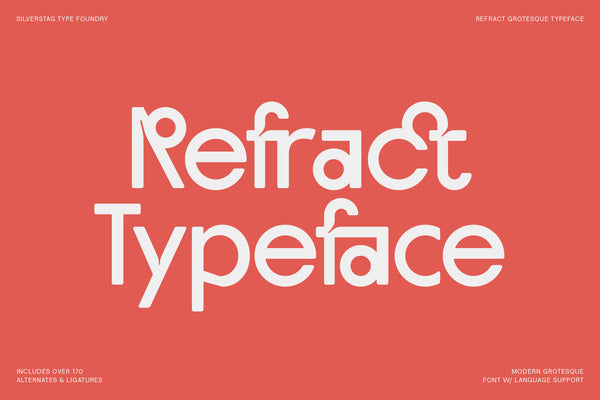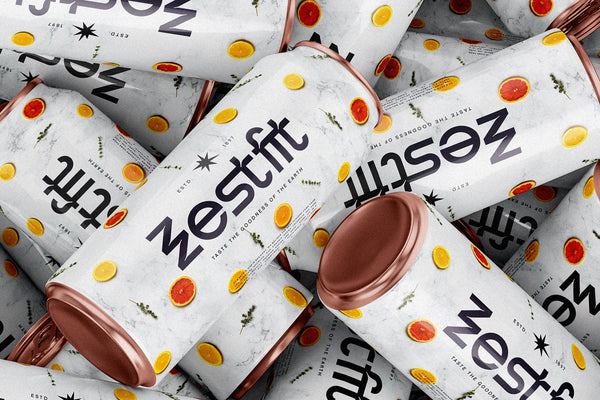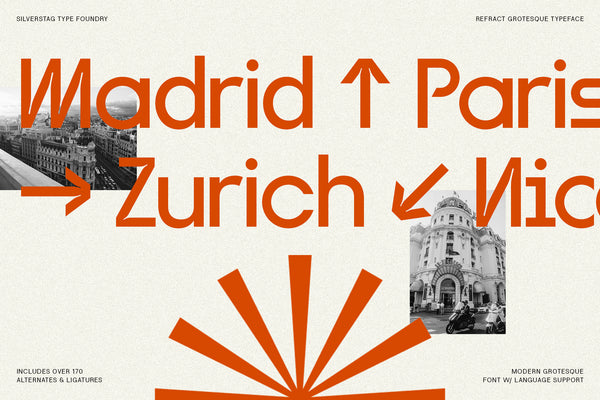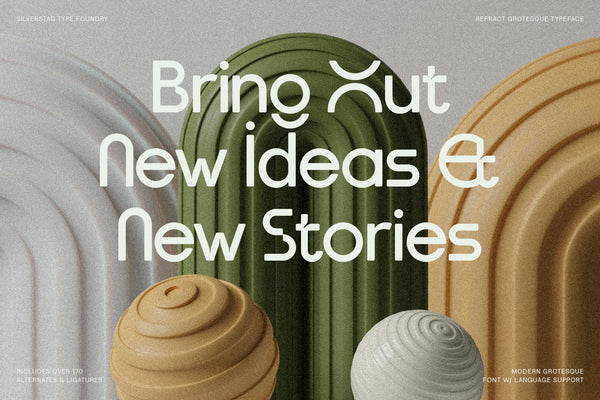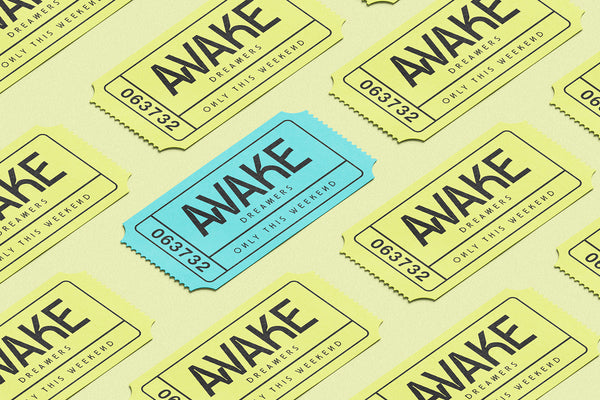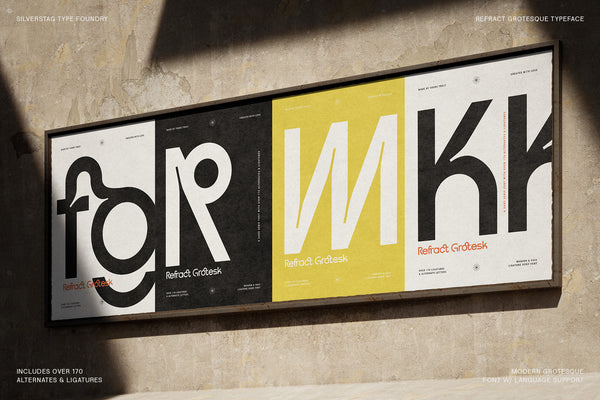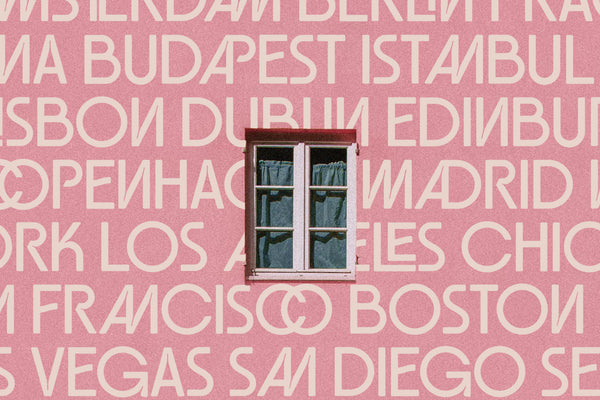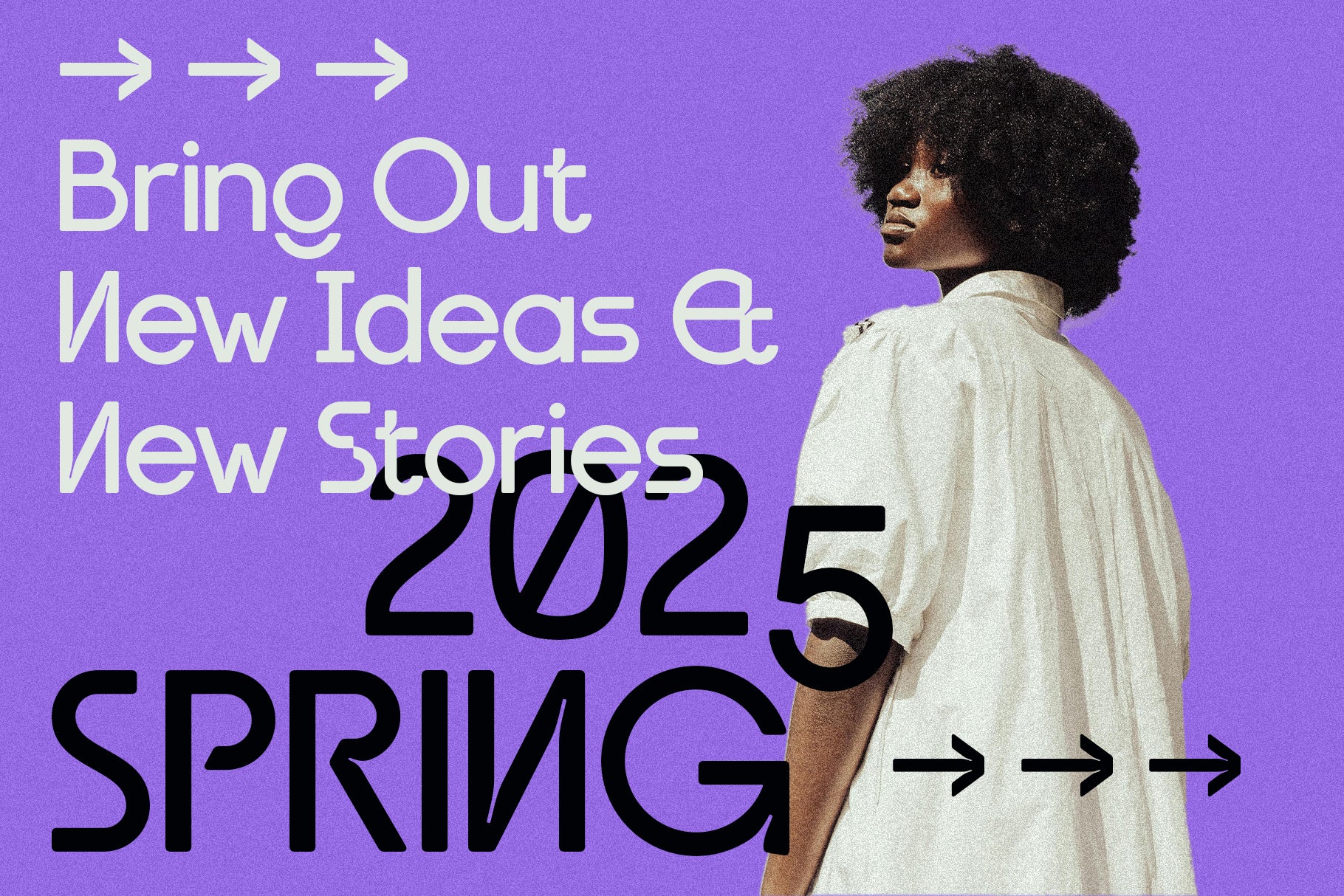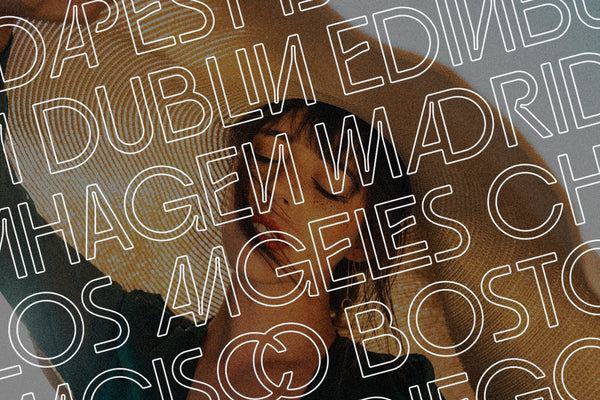
Refract is a bold geometric grotesk font family designed to break convention and expand your typographic possibilities. Featuring four distinct styles—Regular, Outline, Round, and Round Outline—Refract fuses structure with style, making it ideal for bold branding, expressive editorial design, and high-impact headlines.
With over 170 ligatures and stylistic alternates, Refract...
Refract is a bold geometric grotesk font family designed to break convention and expand your typographic possibilities. Featuring four distinct styles—Regular, Outline, Round, and Round Outline—Refract fuses structure with style, making it ideal for bold branding, expressive editorial design, and high-impact headlines.
With over 170 ligatures and stylistic alternates, Refract allows for endless customization and lettering experimentation. Each style includes three uppercase sets and two lowercase sets, offering creative freedom to craft truly unique wordmarks, logos, and layout systems.
• Refract Regular – Strong, clean, and confident
• Refract Outline – Light-filled, spacious, and bold
• Refract Round – Smooth, approachable, and modern
• Refract Round Outline – A creative blend of softness and structure
Inspired by geometry and the play of light through form, Refract is both striking and flexible. Its fluid connections and versatile shapes adapt seamlessly across fashion, tech, editorial, and digital applications.
Supporting 90+ languages, Refract is a global-ready font family that combines clarity, creativity, and experimental edge.